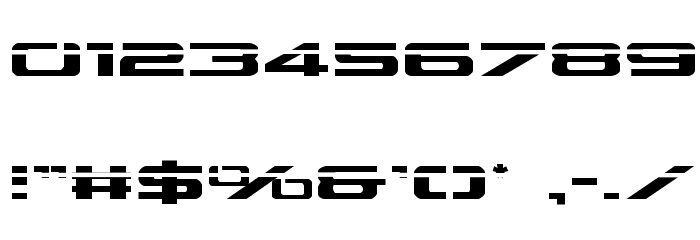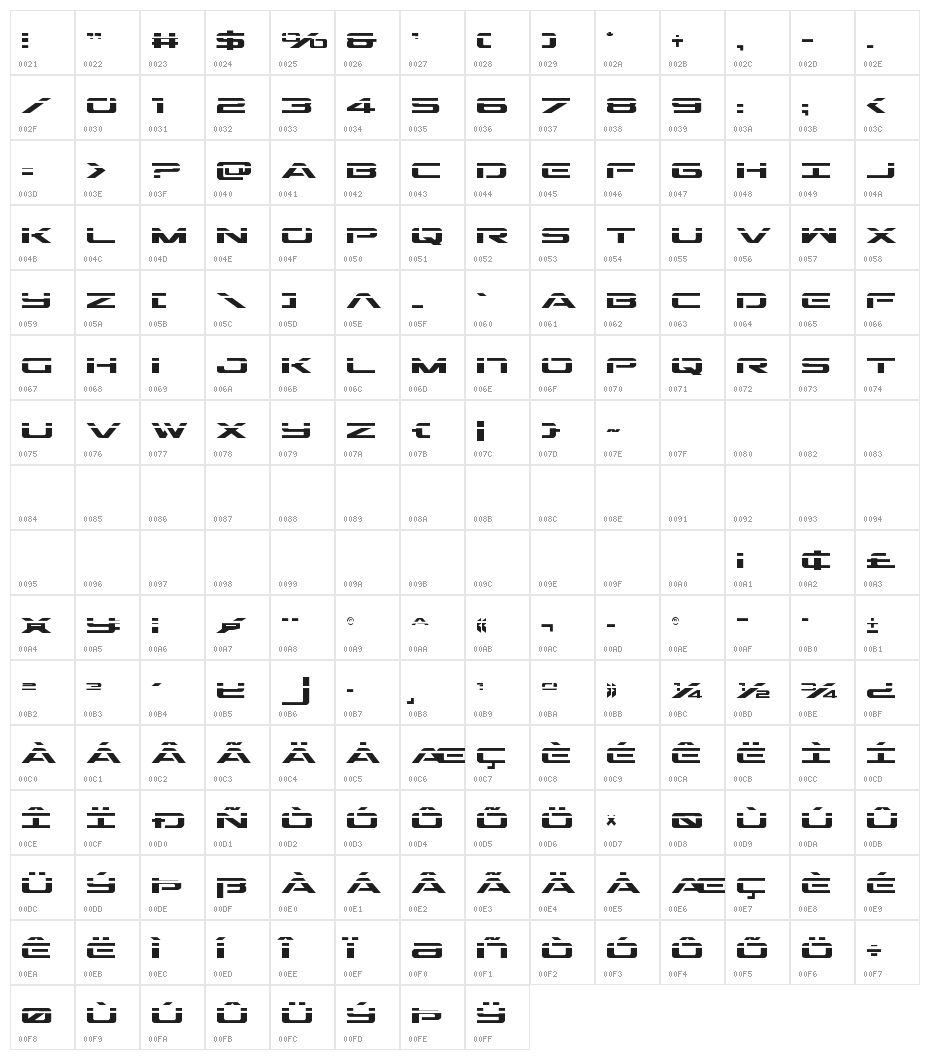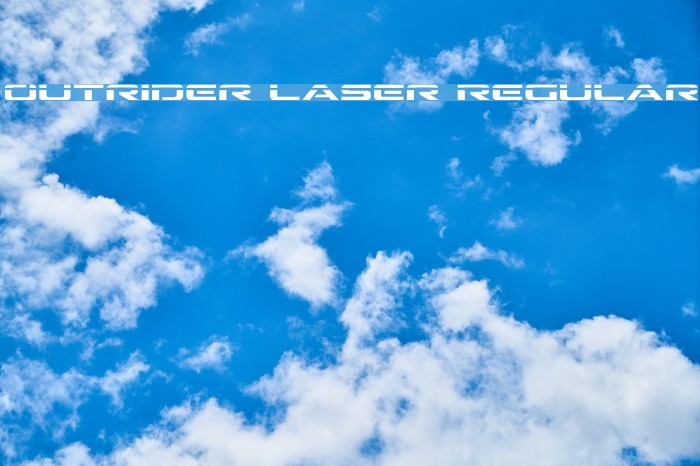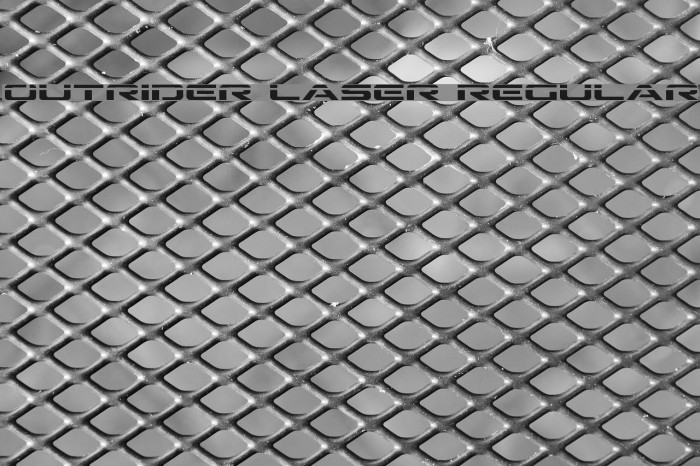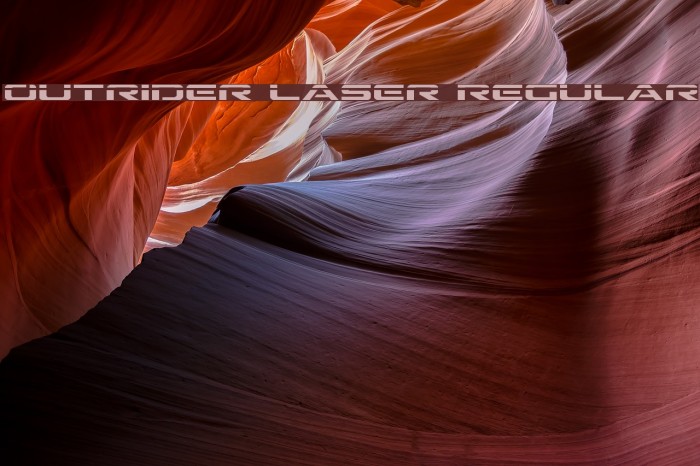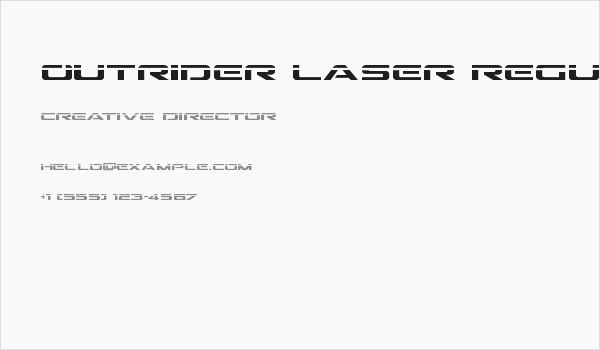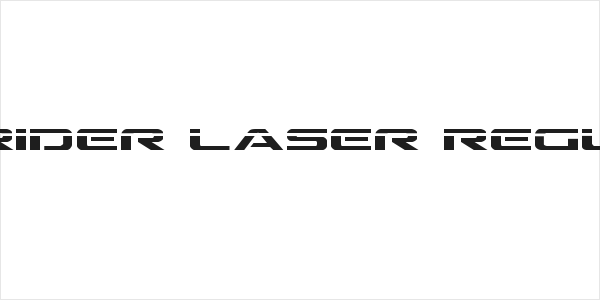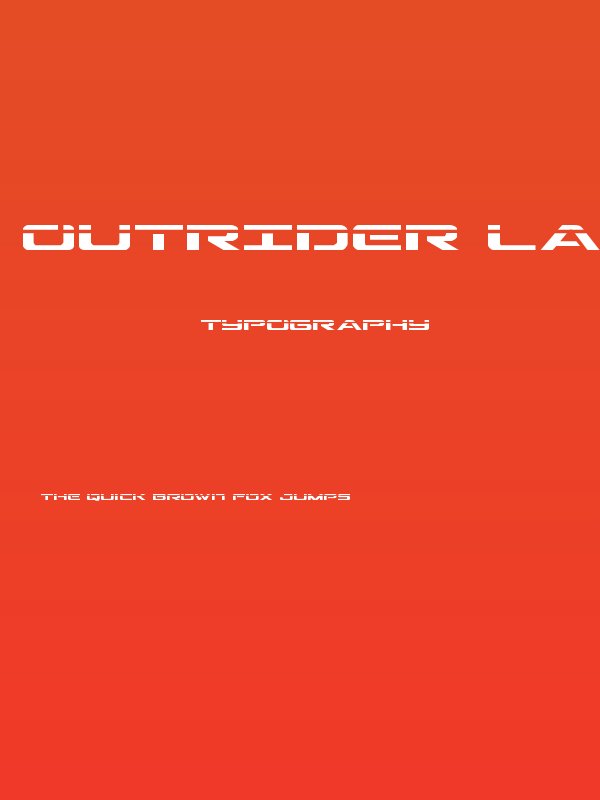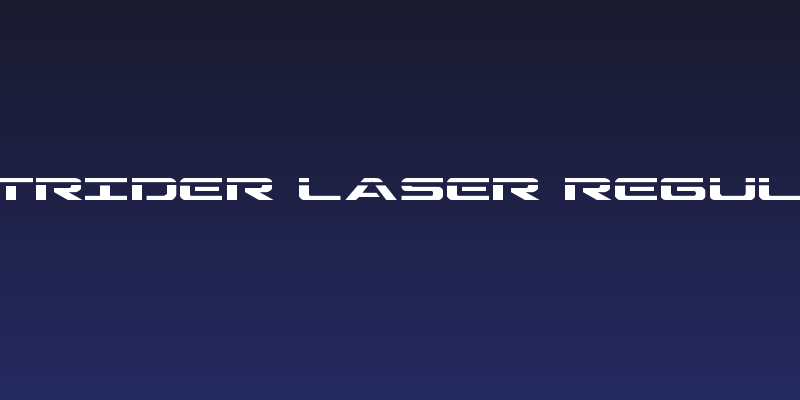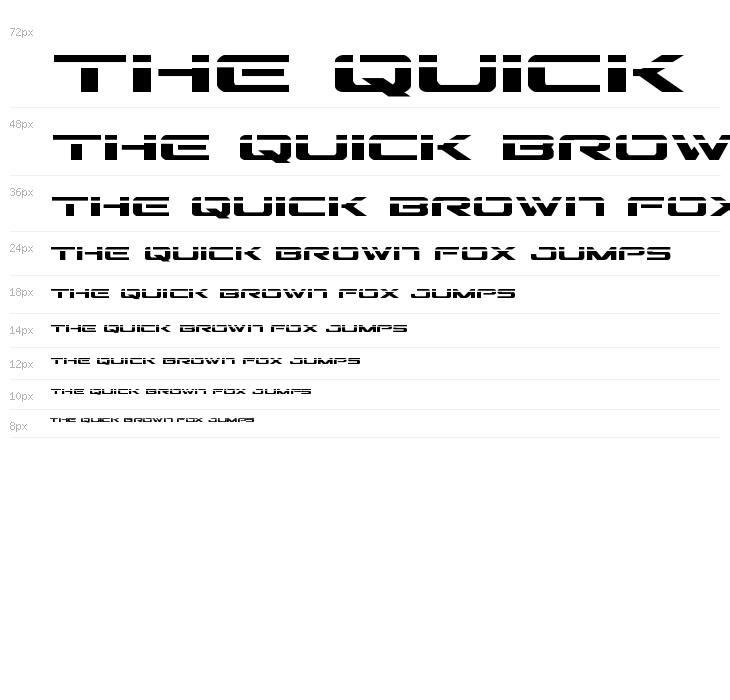
Outrider Laser Regular Font
Outrider Laser Regular Description
This font features a futuristic and angular design, characterized by sharp edges and geometric shapes. The uppercase letters are bold and dynamic, with a distinct sci-fi aesthetic. The lowercase letters maintain the same angular style, creating a cohesive look throughout. Numbers and special characters are designed to match the overall theme, with unique cuts and lines that enhance the modern feel. The font's style is ideal for projects that require a bold and innovative appearance, such as technology branding or video game titles.
| Proposed Projects | Ideal for technology branding, video game titles, movie posters, and futuristic designs. |